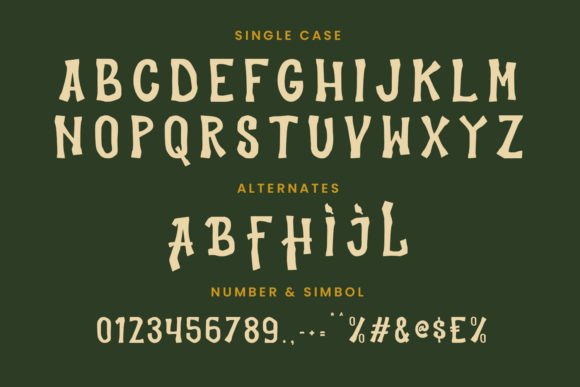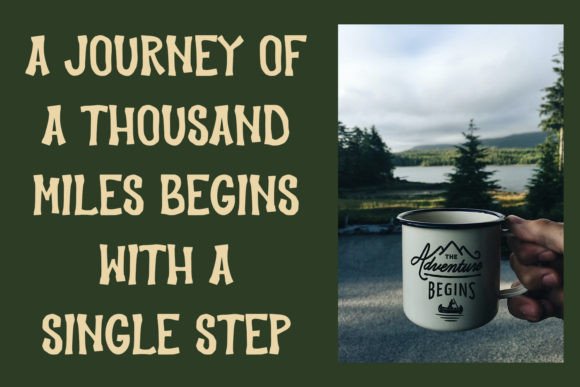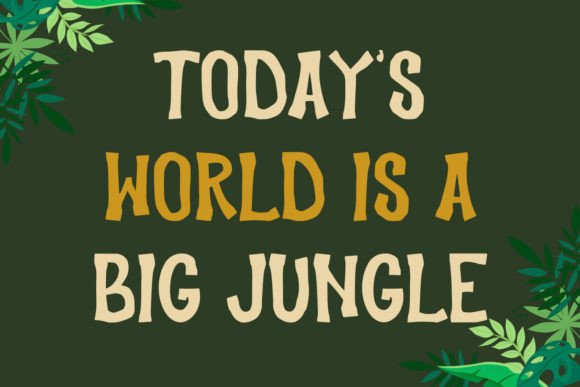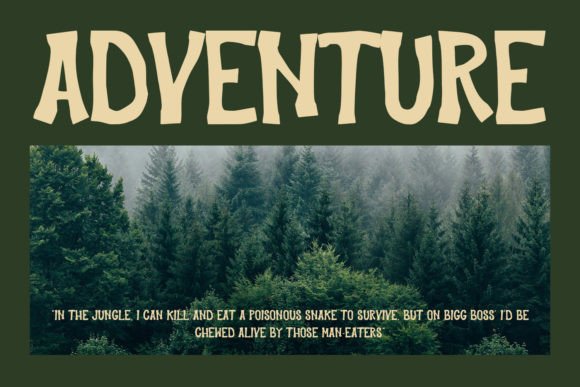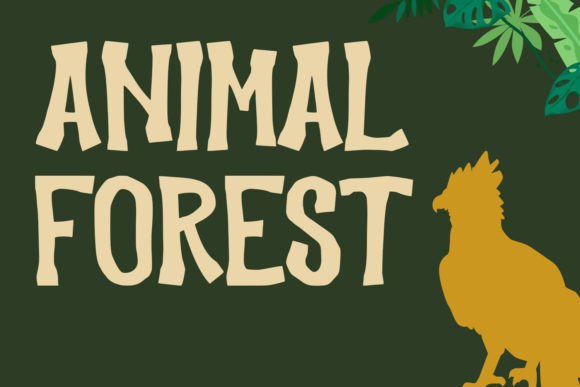
Introduction to Jungle Hype Font
Jungle Hype is a modern display typeface font.
With a bold stroke, fun characters and a bit of ligatures and alternates This font is ideal for logo designs, social media, movie and book titles and so much more.